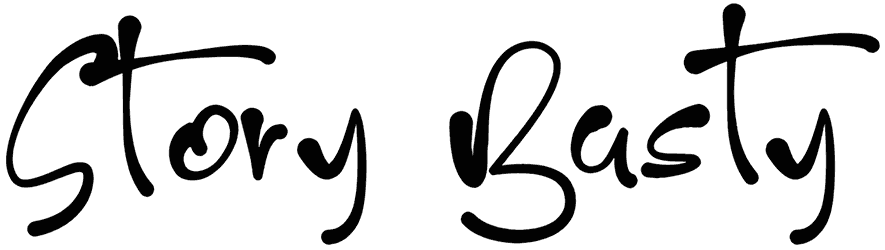
Story Basty Font
If you’ve been looking for a cute handwritten font for your design, you should take a look at Story Basty. This font conveys a sense of fun and playfulness; it also grabs attention to your work and brings extra joy. It is a useful choice for product packaging, holiday invitation cards, comic books, cartoon titles, and other projects that need a childish taste.